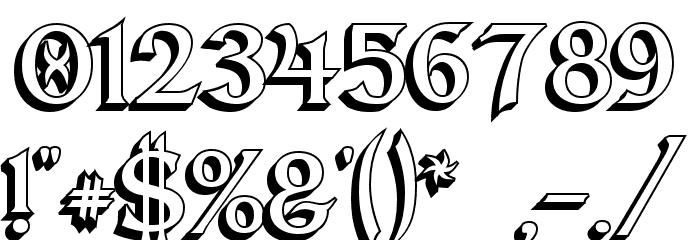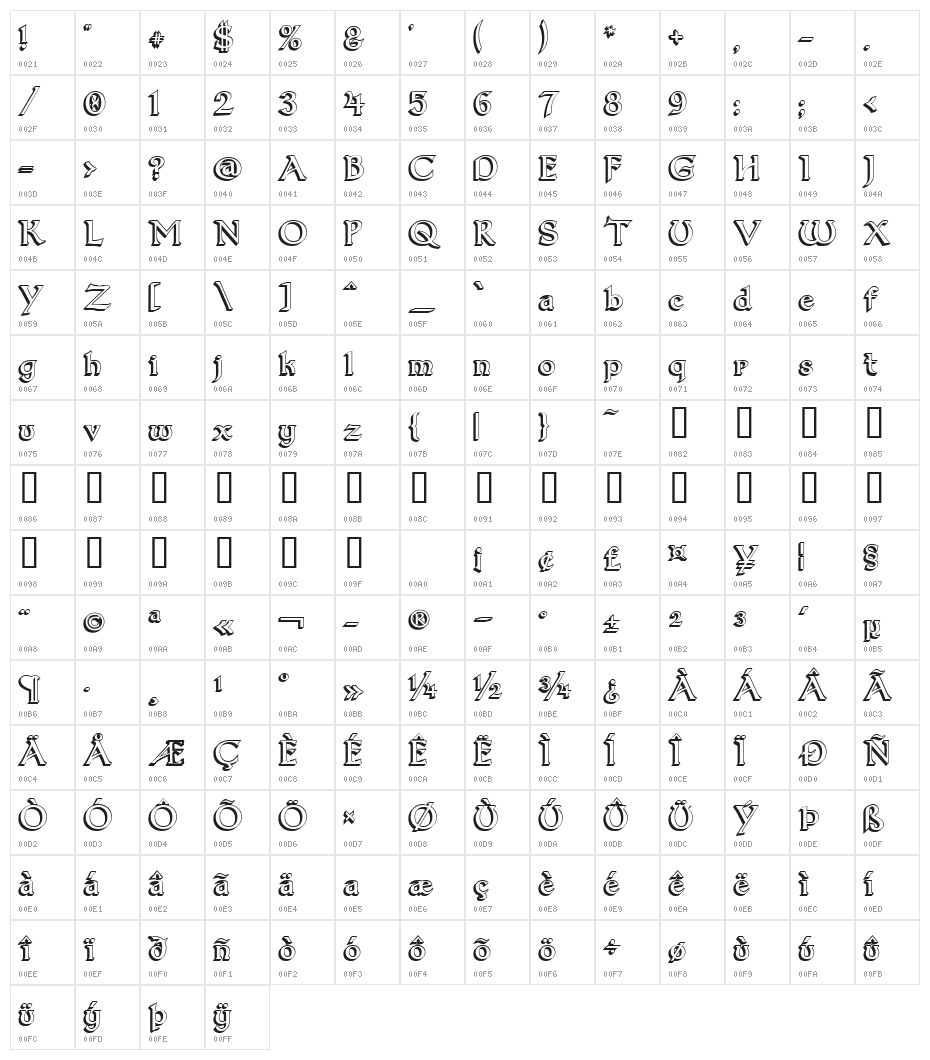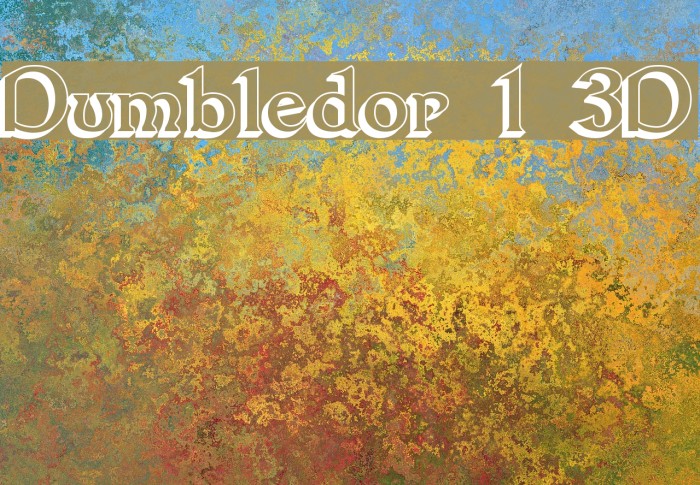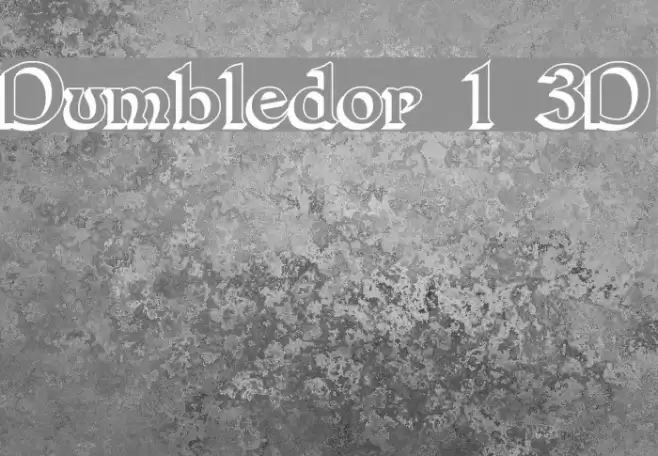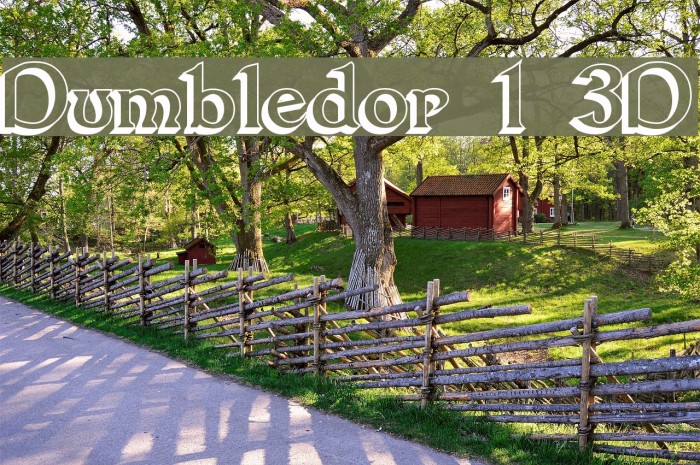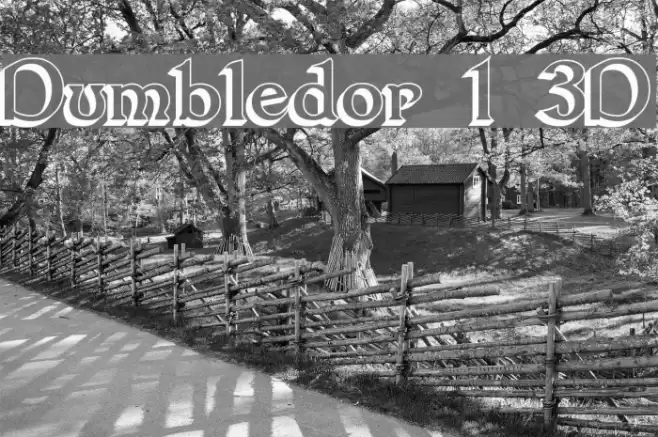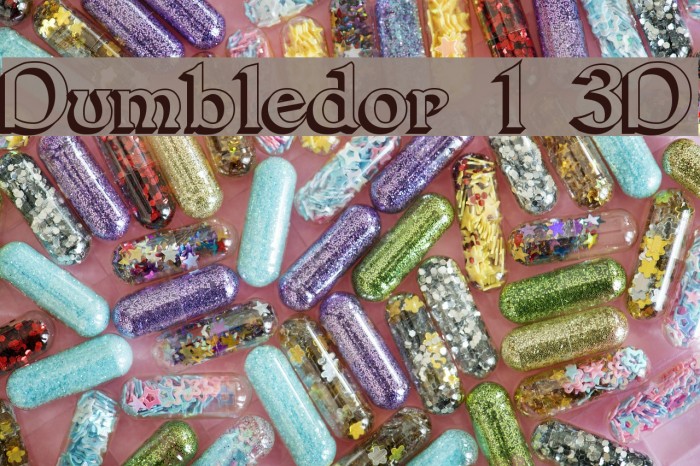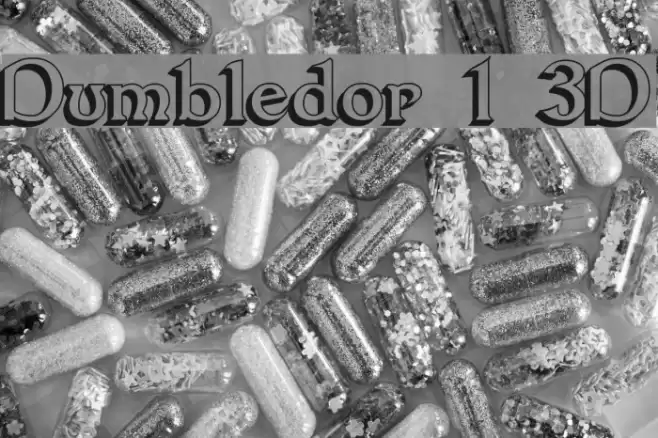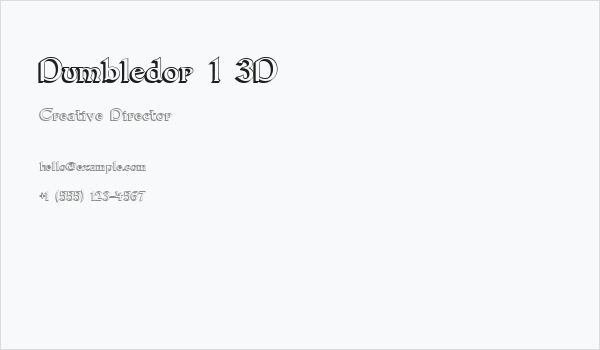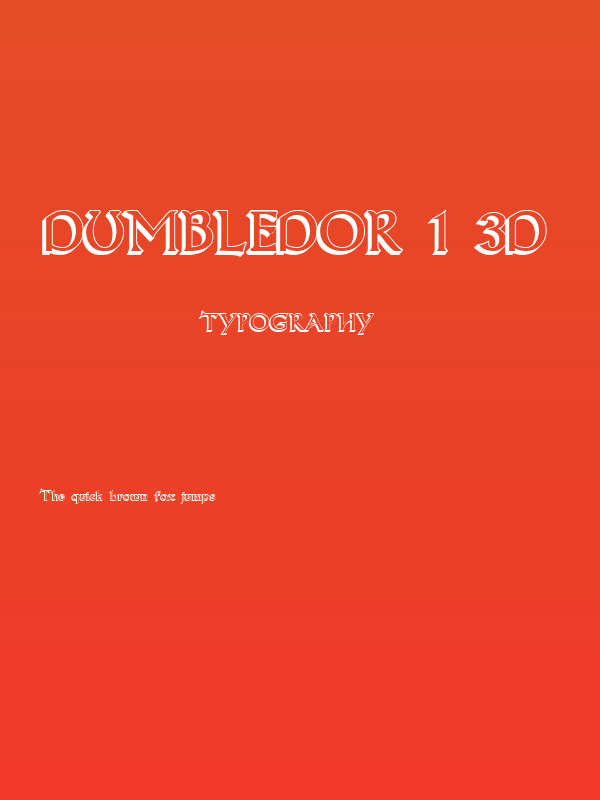
Dumbledor 1 3D Font
| おすすめプロジェクト | Ideal for fantasy-themed projects, book covers, posters, and branding that requires a dramatic and eye-catching typeface. |